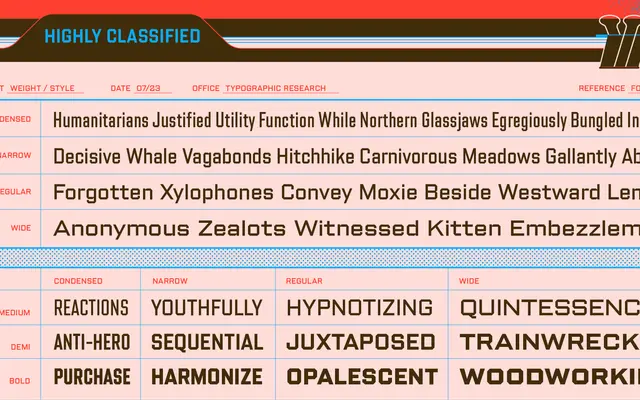
Shuttleblock
Fort Foundry · Brian Brubaker, Mattox Shuler, Clark Orr
A block sans in four widths inspired by the lettering of 20th-century space programmes, originally developed for the Hellcats brand before being expanded into a full family.
Drawn from the block letterforms found on NASA-era space initiatives, Shuttleblock pairs a restrained classical quality with simple, sturdy construction. The family spans four widths — Condensed, Narrow, Regular and Wide — each offered in Medium, Demi and Bold with matching italics, totalling 24 styles. Helpful OpenType alternates, custom symbols and wide Latin language support make it practical across a range of display contexts.
Shuttleblock is a geometric sans with block letterforms inspired by space programme signage, balancing sturdy upright forms with a restrained, classical sensibility across four widths.